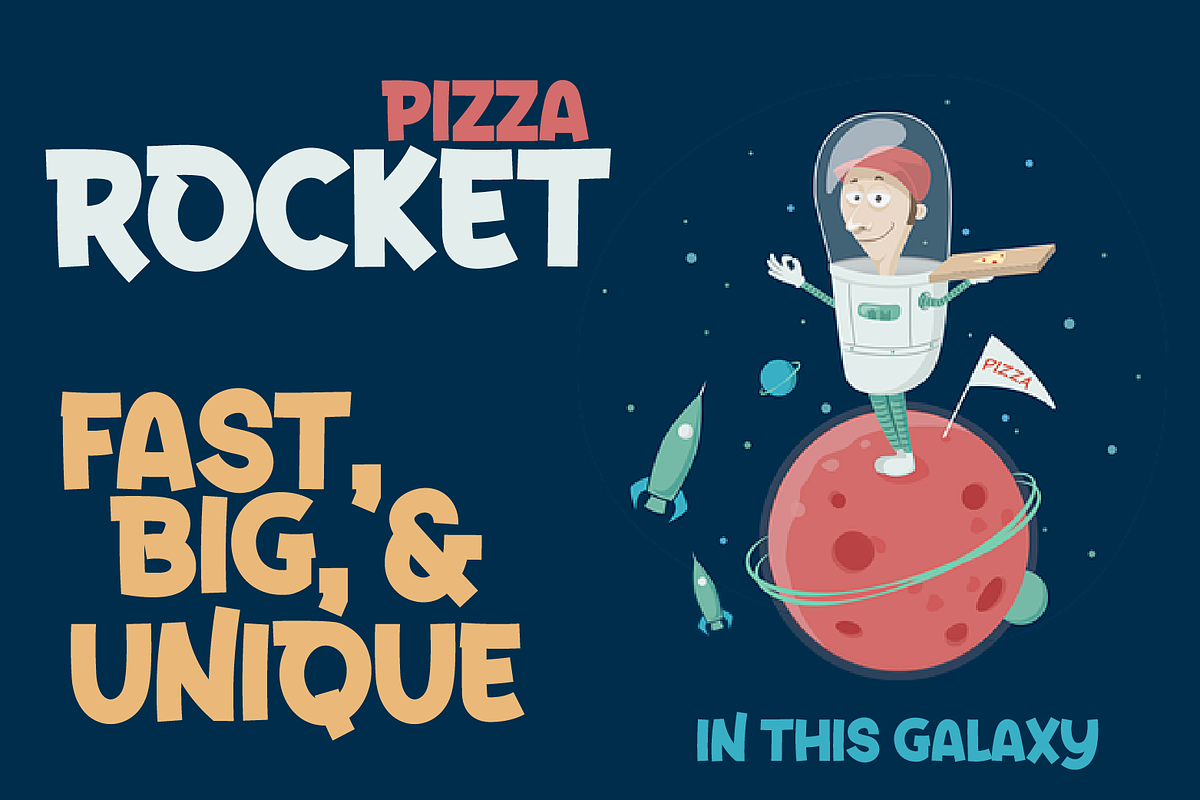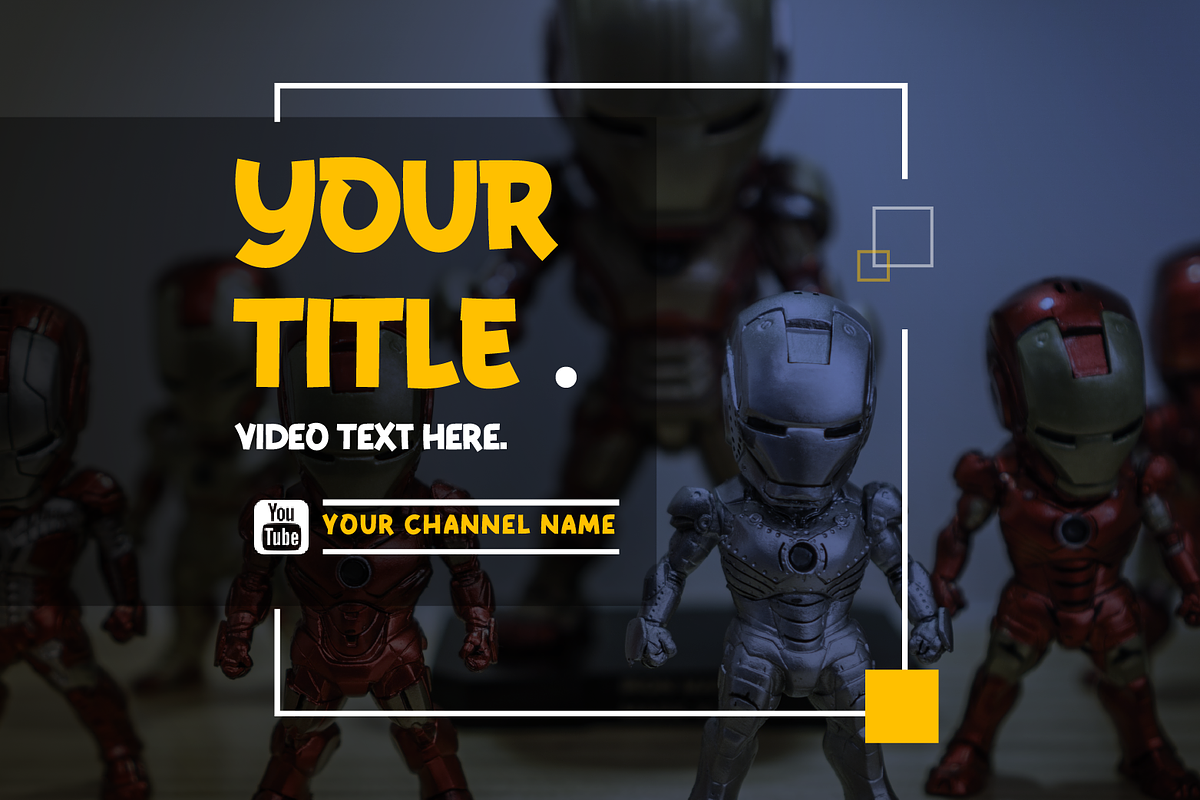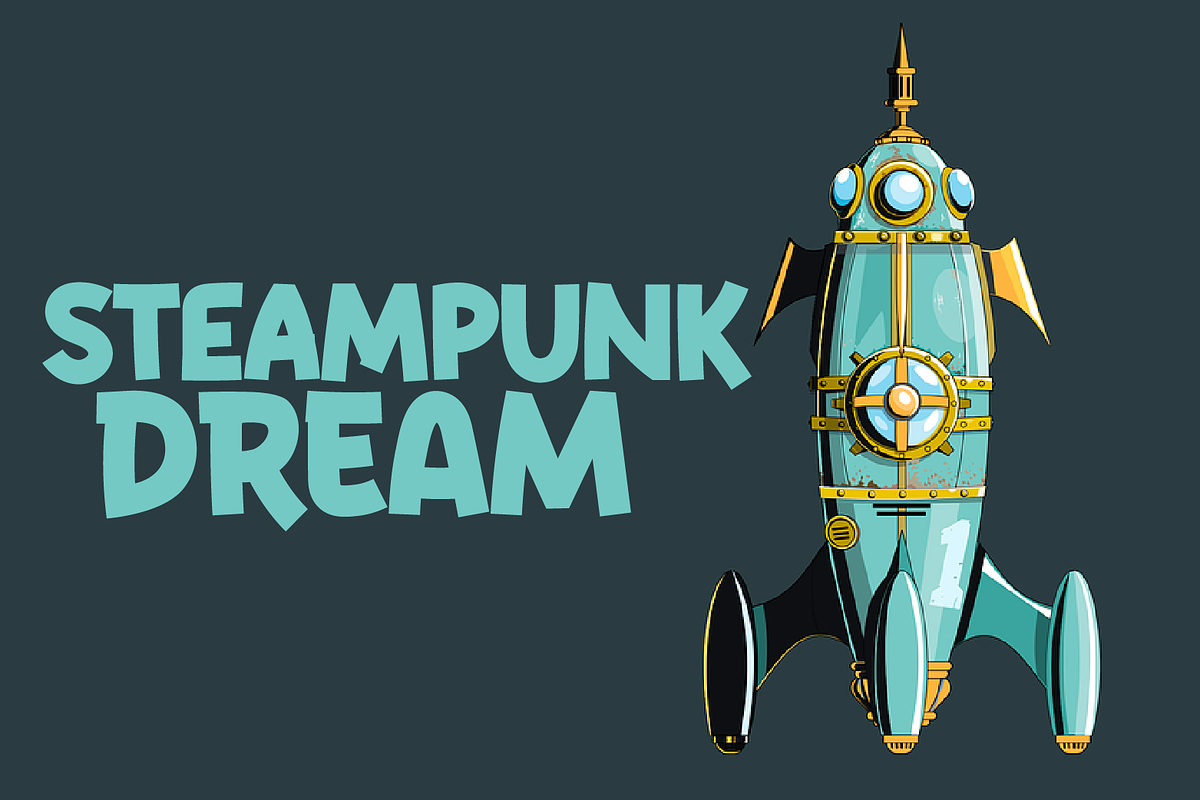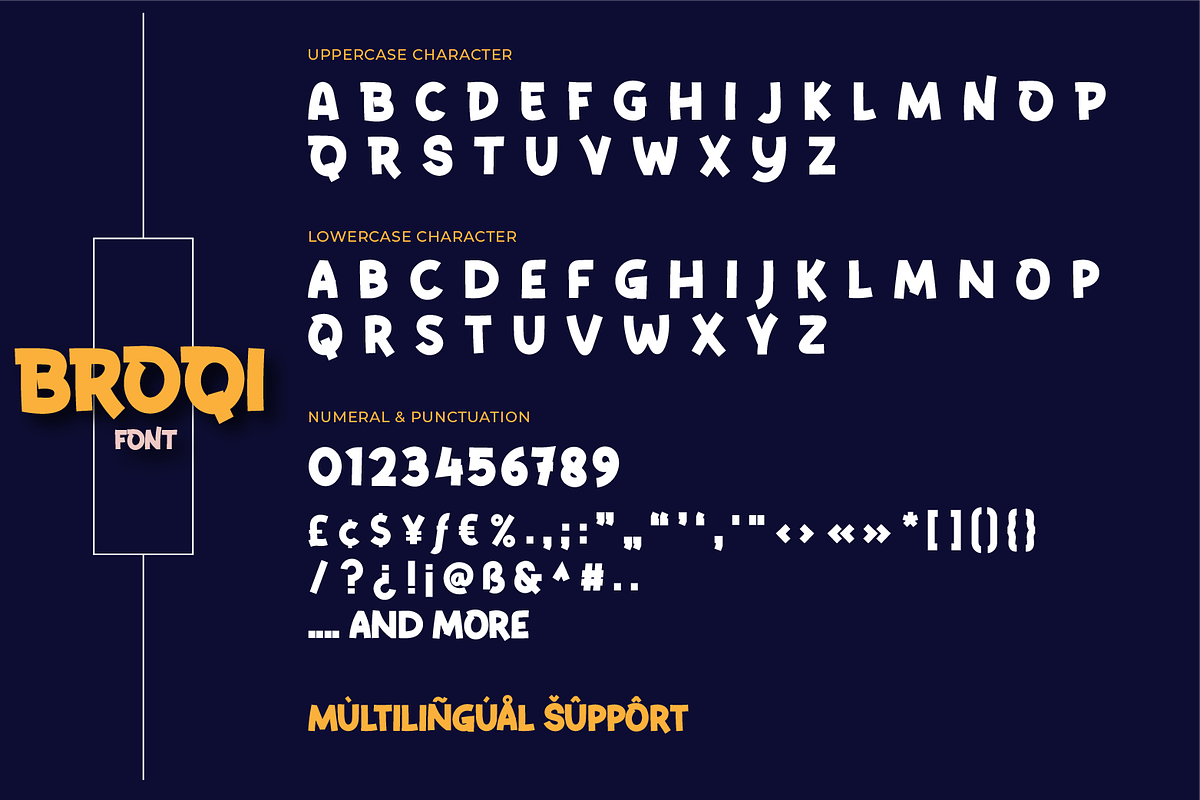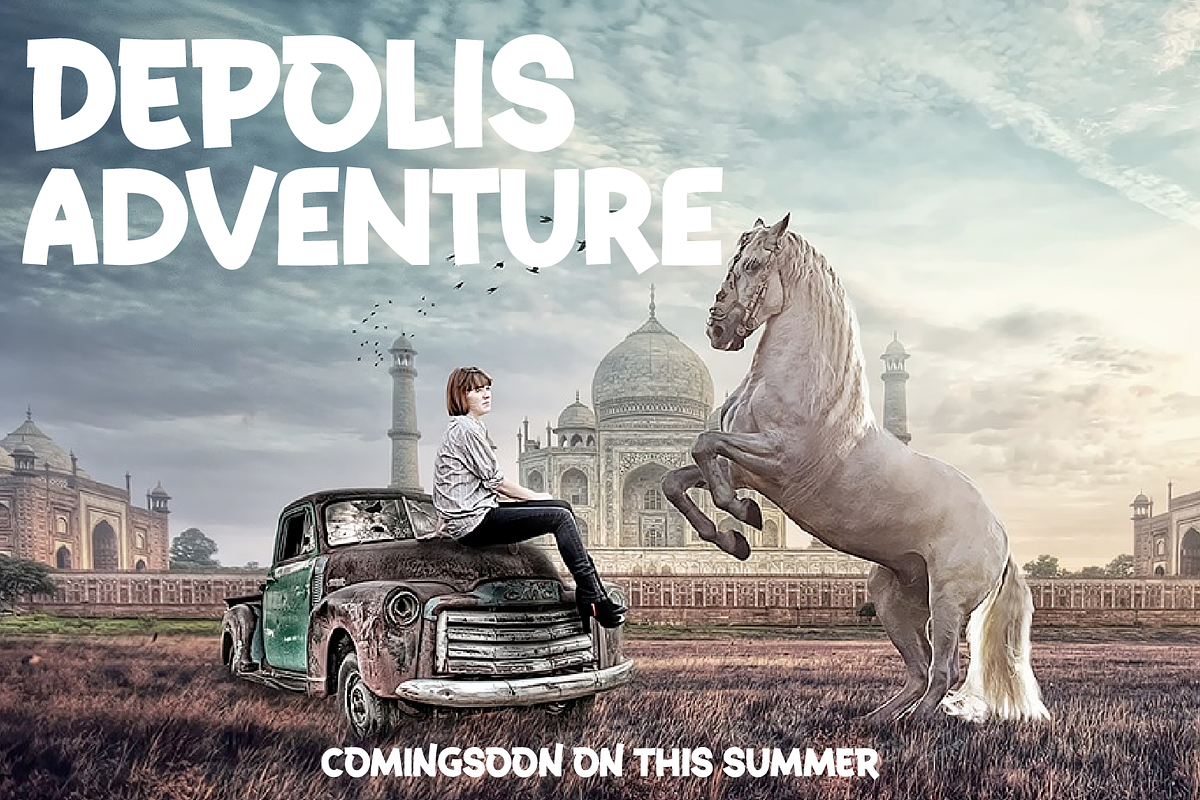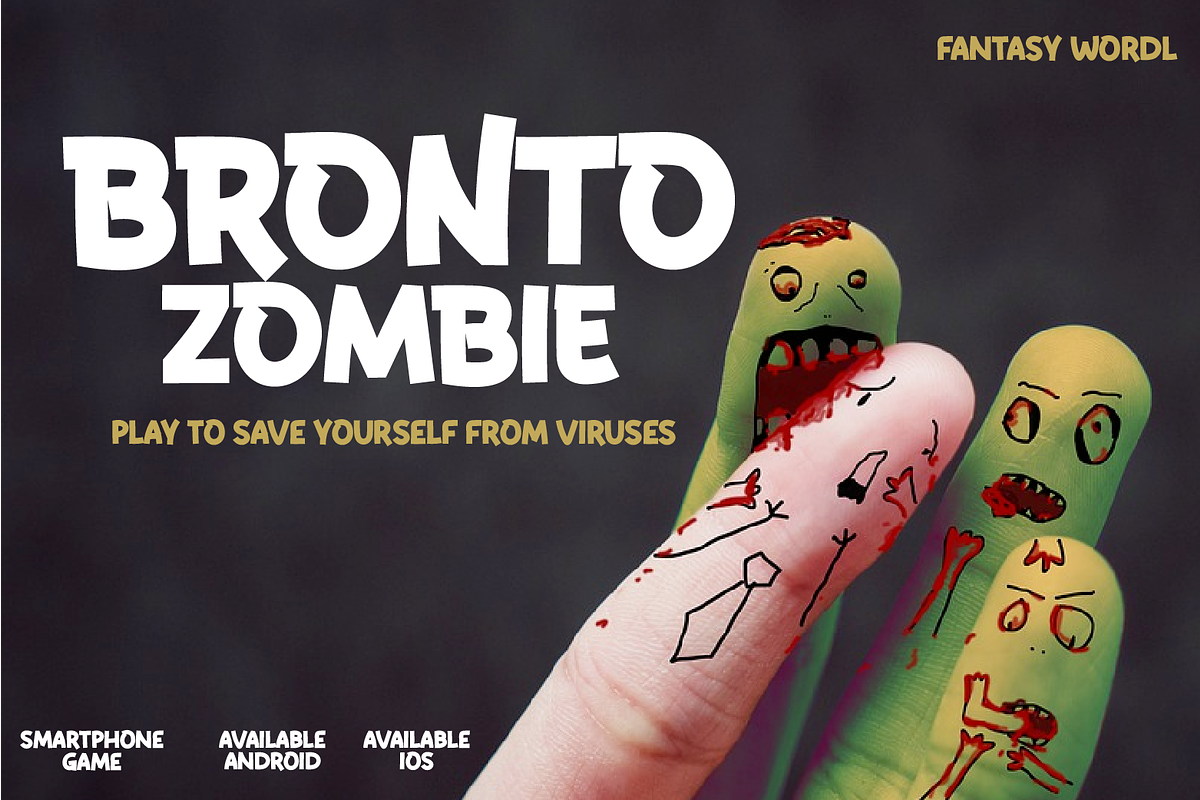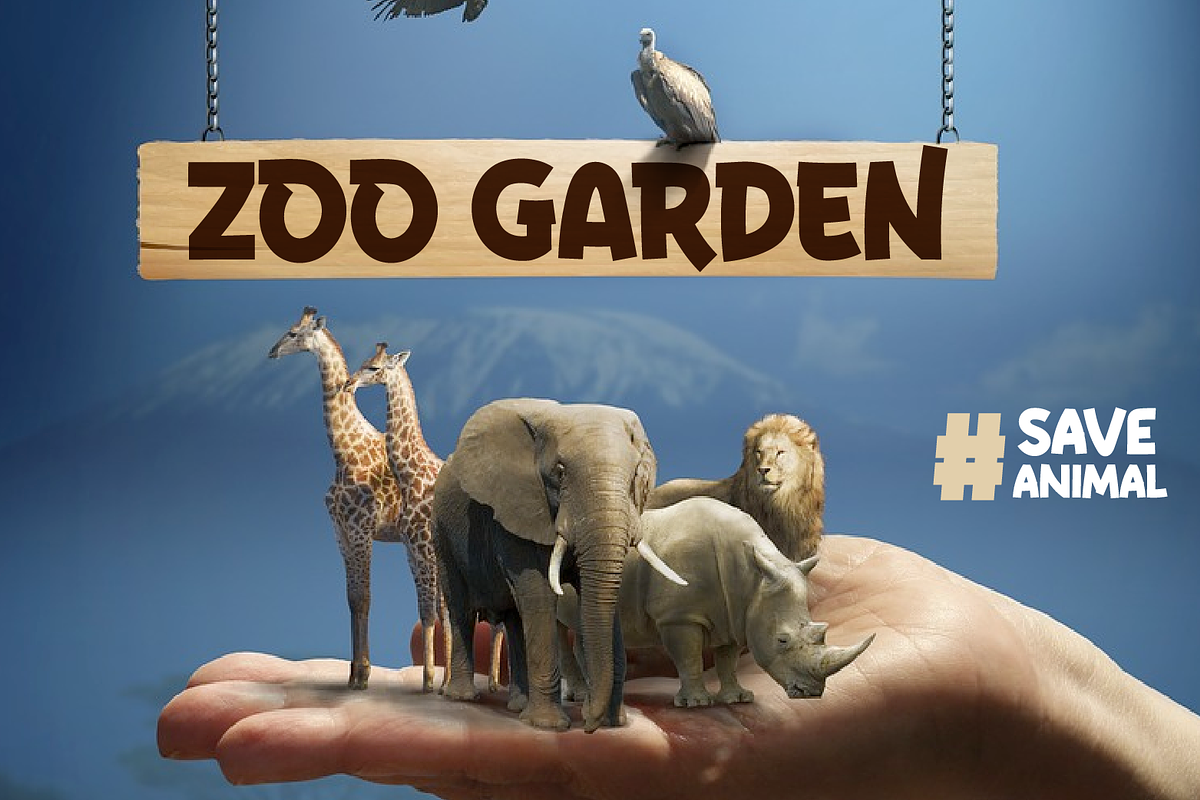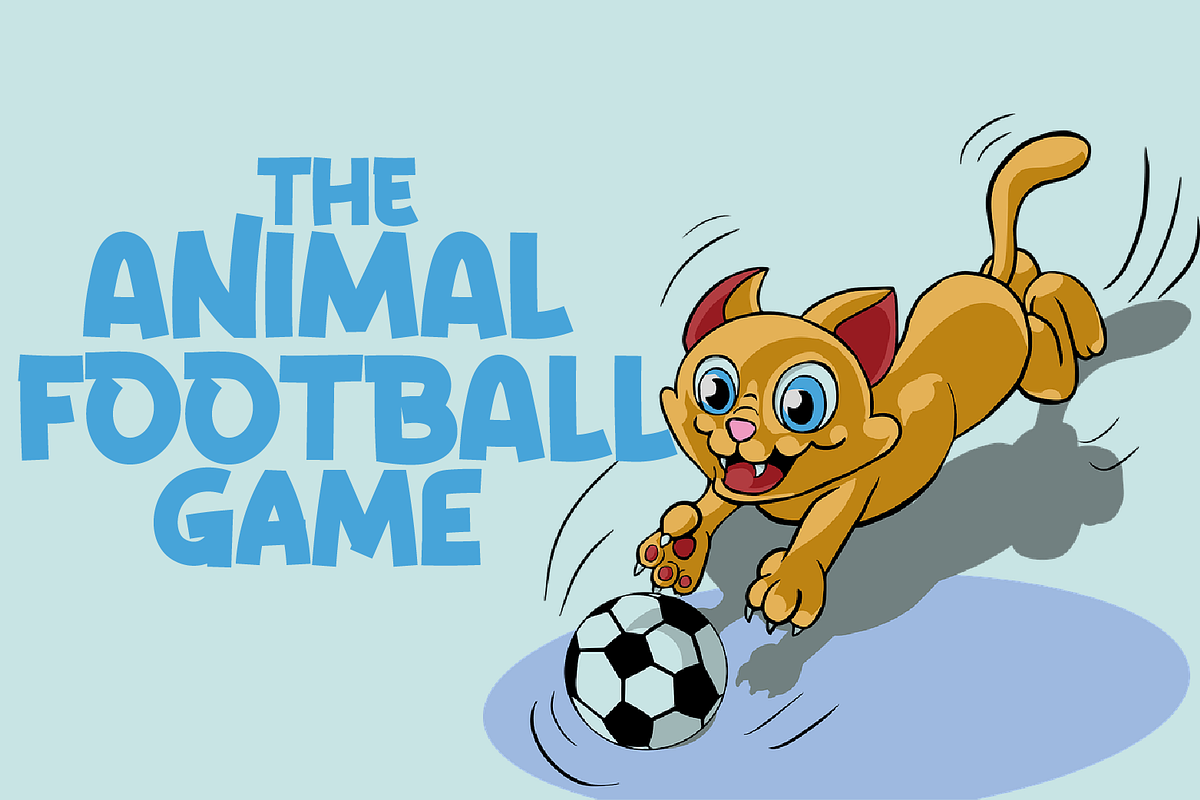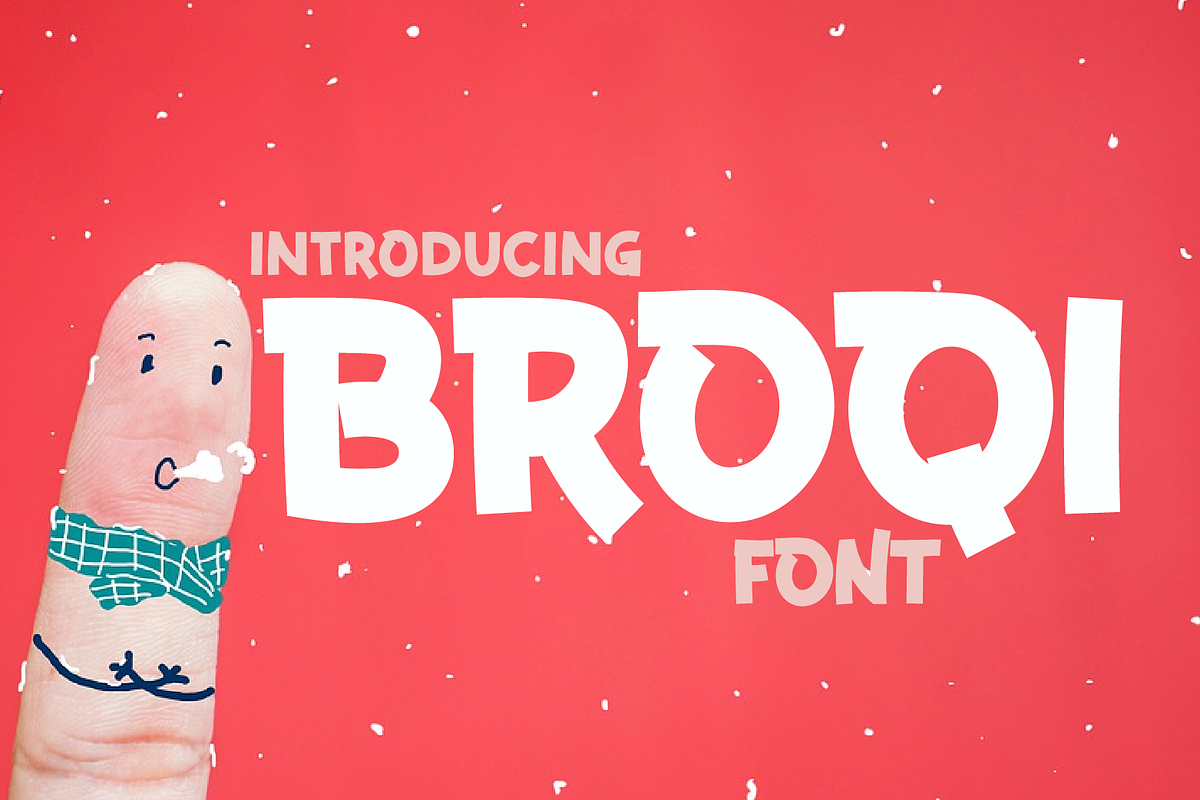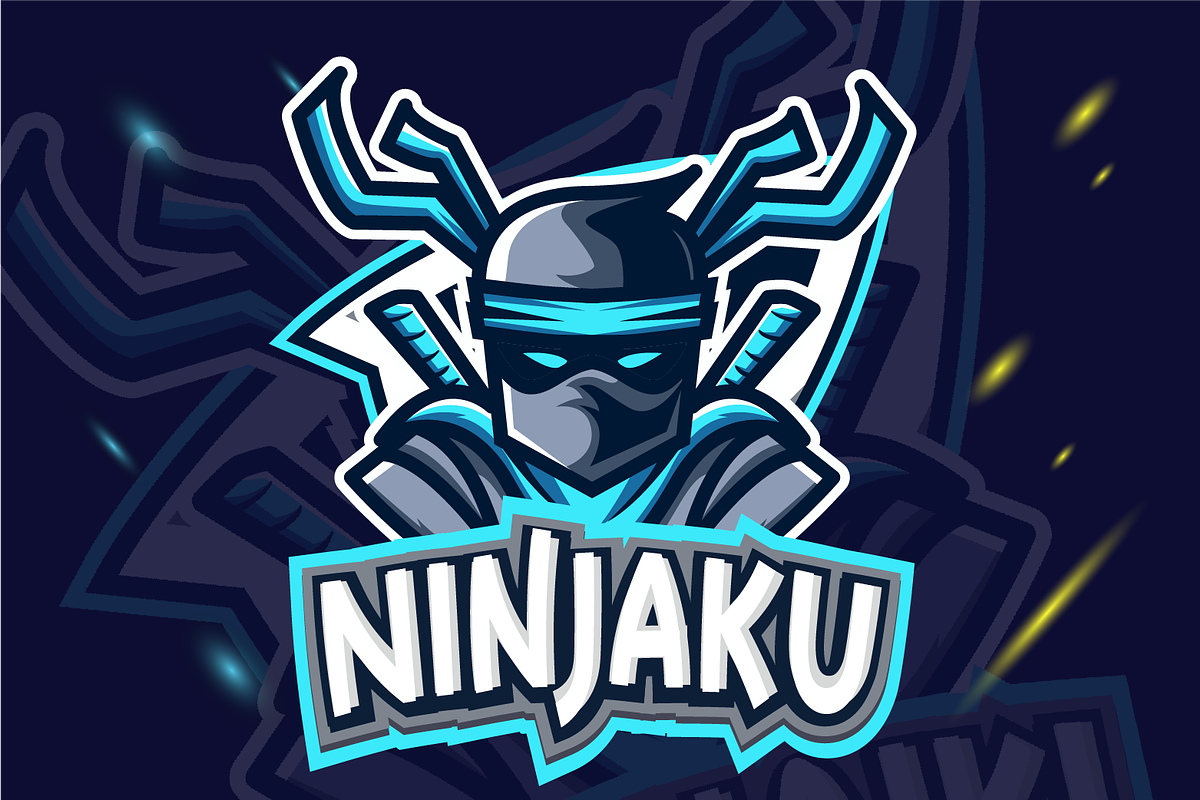
Broqi
Introducing Broqi – sanserif / display font with a new look, which is stylish and flexible. Its bold, solid, clear, and strong characteristics make this font look beautiful with the right portions in your various design projects
This font is made with passionate pleasure and passionate passion applied to this font design, so this font is suitable for offline or online games, PC or smartphone games, adventure posters, children’s movie titles, food titles and logos, magazines, youtube cover images, social media page covers, banner headlines, children’s book titles, film titles, and more.